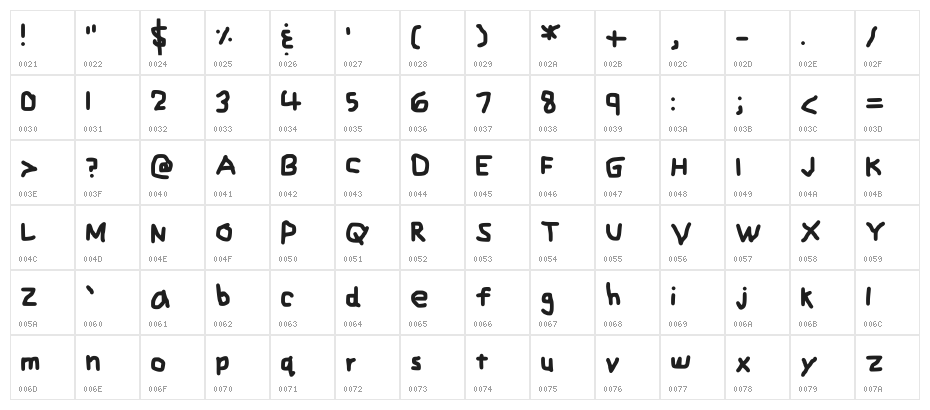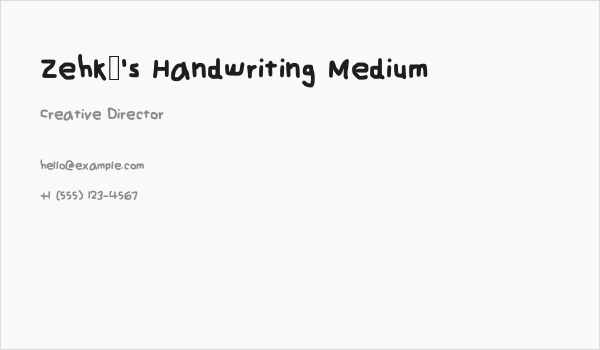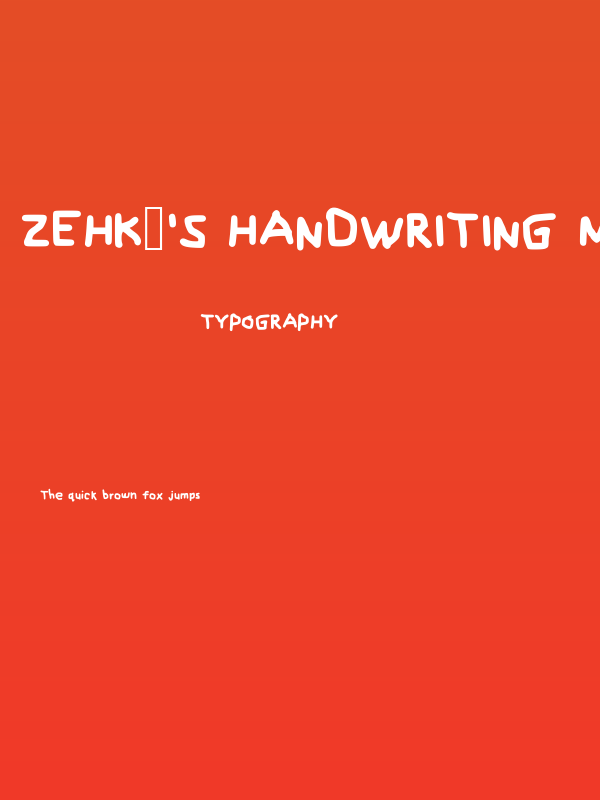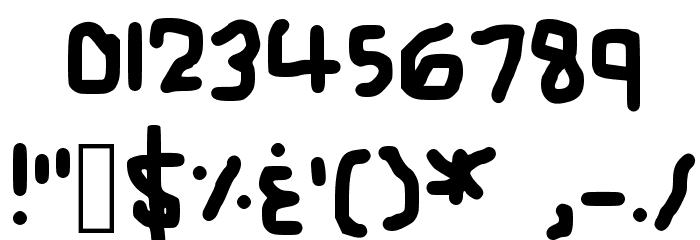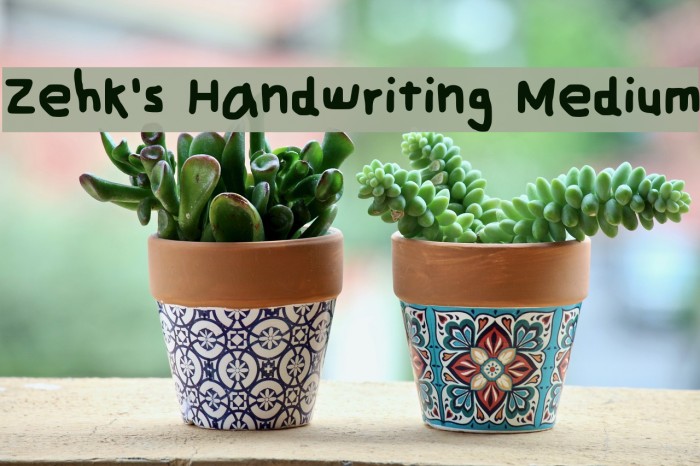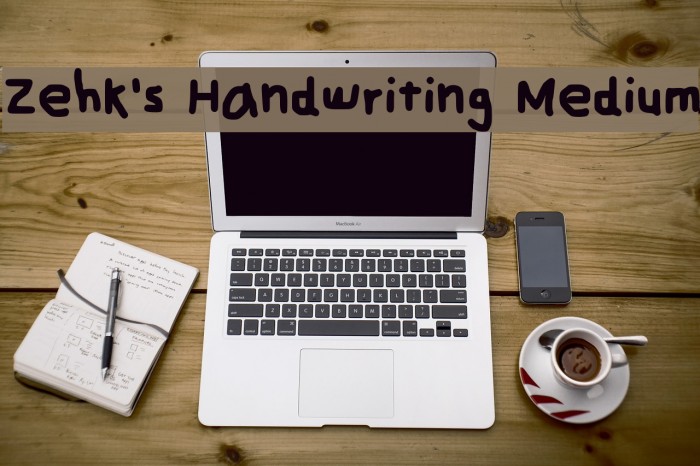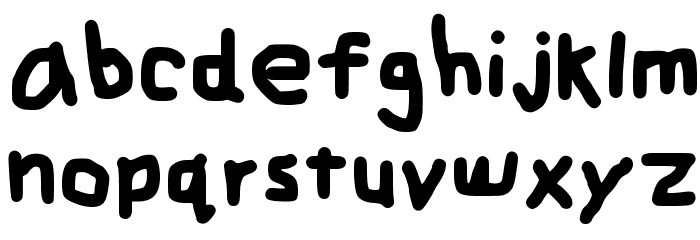
Zehk's Handwriting Medium Font
Zehk's Handwriting Medium Description
This font features a playful and casual handwritten style, characterized by its bold and rounded letterforms. The strokes are thick and consistent, giving it a friendly and approachable appearance. Each character maintains a uniform width, contributing to a cohesive look across the alphabet. The uppercase and lowercase letters are distinct yet harmonize well together, while the numerals and special characters retain the same whimsical quality. The overall design is informal, making it suitable for projects that require a personal touch or a sense of fun and creativity.
| Overall Style | Casual, Playful |
| Use Case | Logos, Headlines, Informal Text |
| Proposed Projects | Ideal for children's books, greeting cards, casual branding, and playful social media graphics. |